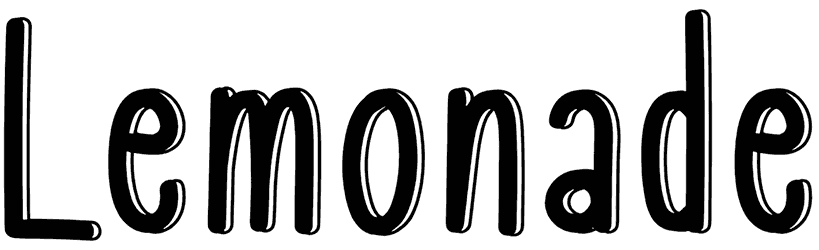
Lemonade Font
If you crave to fill the gaps between your movie posters, stickers, flyers, or brochures and the audience’s expectations, you must select a wonderful script font the same as Lemonade. Its rounded characters can make your graphic content look more interesting to the customers by instilling a sense of personalization, dreaminess, or captivation.